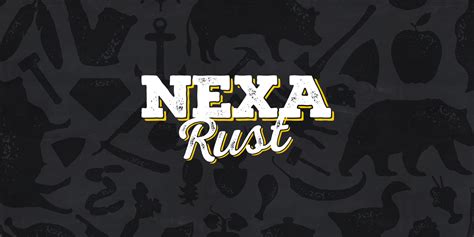
Nexa Rust Font. Nexa rust is a rough version. With its textured, rough edges and warm,.
Nexa rust is a rough version. With its textured, rough edges and warm,.
Nexa rust is a rough version. With its textured, rough edges and warm,. Nexa rust is a rough version.